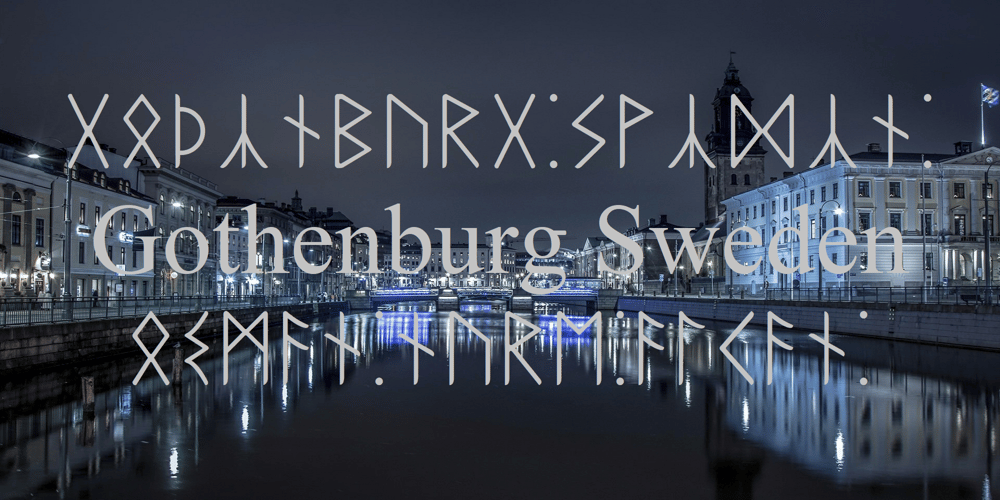
Ongunkan Gothenburg Futhark Swe Font Family was designed by Osman Nuri ALKAN and published by Runic World Tamgacı. Ongunkan Gothenburg Futhark Swe contains 1 styles and family package options. Sweden Gothenburg FutharkIn Sweden you have another set called the Bohuslän runes, which are used specifically in the west coast area (Bohuslän) north of (and including) Gothenburg city (my hometown, incidentally). Interestingly, this is a string of 26 letters, not 16; 2 more than the original Elder Futhark